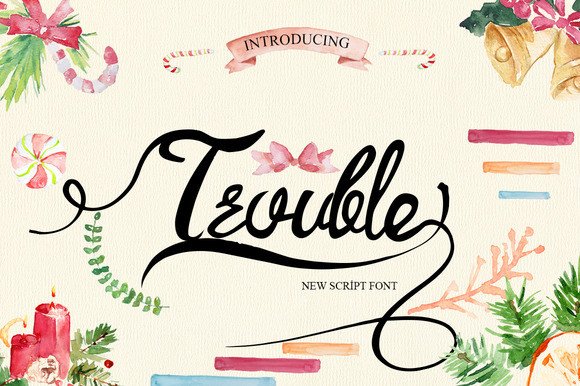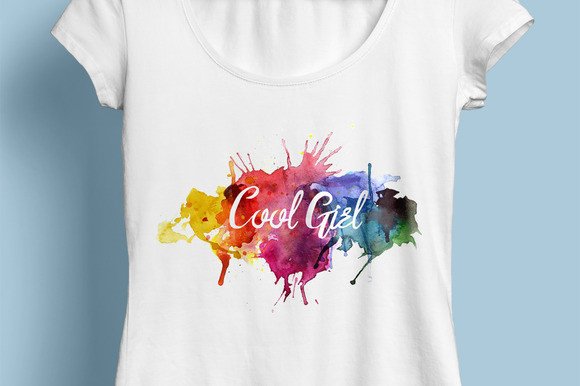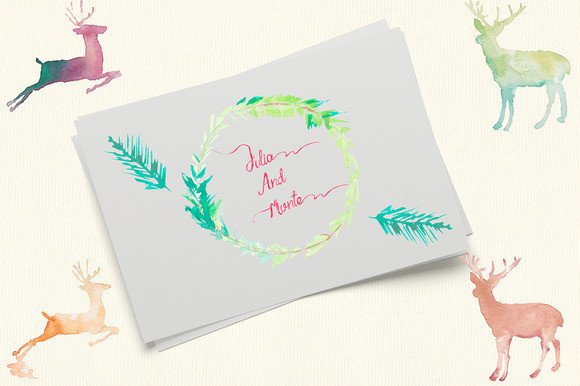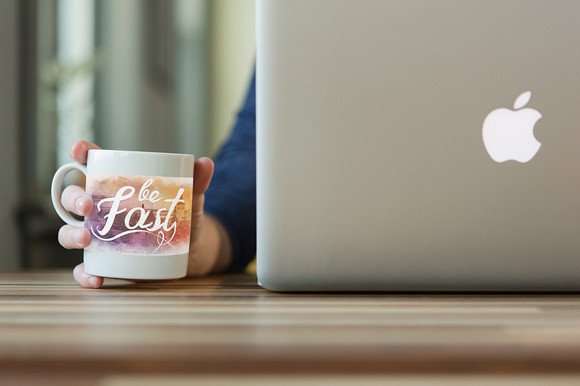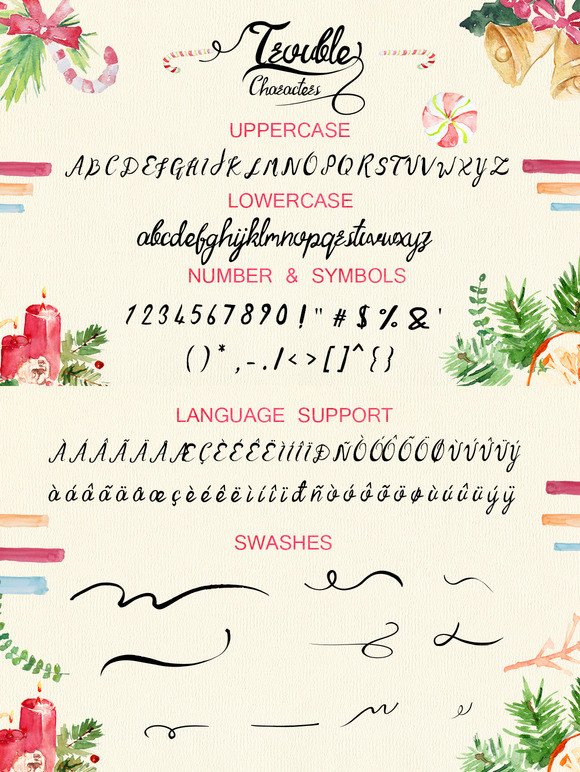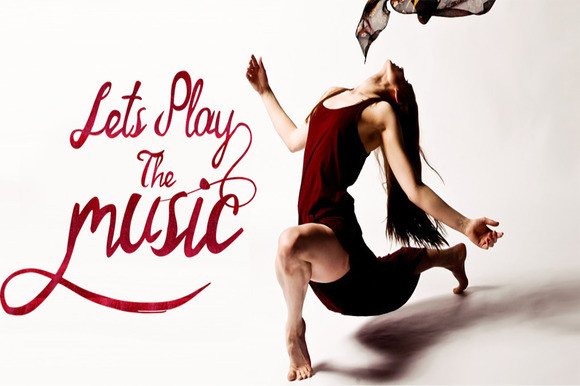
Trouble Font
About Trouble Font
Trouble is a new script font with beautiful swashes. Can be used for various purposes such as: wedding invitations, posters, t-shirts, cafe’s, letterheads and much more.